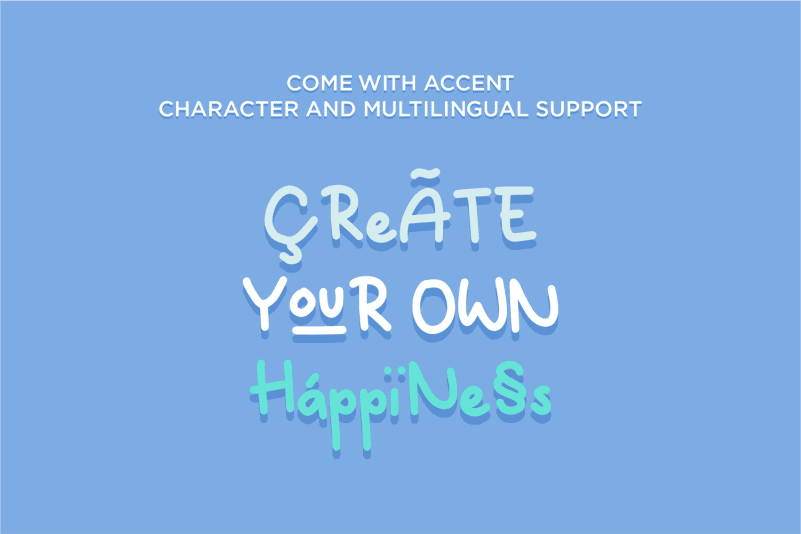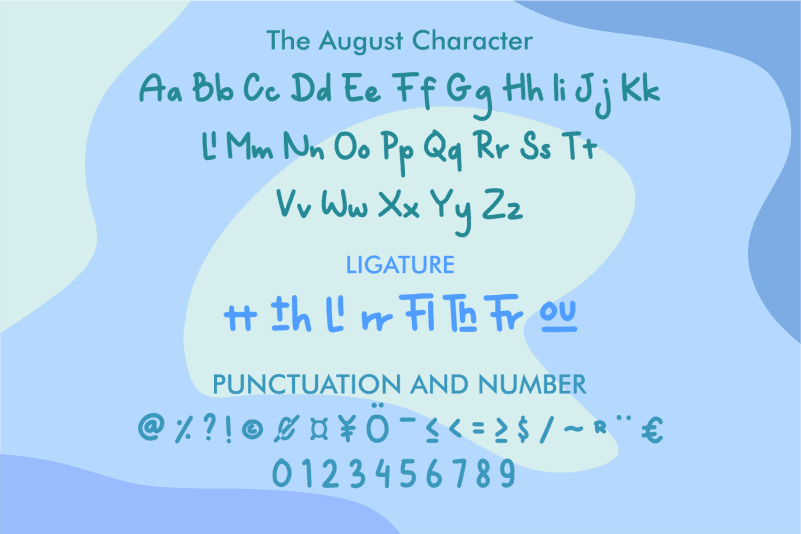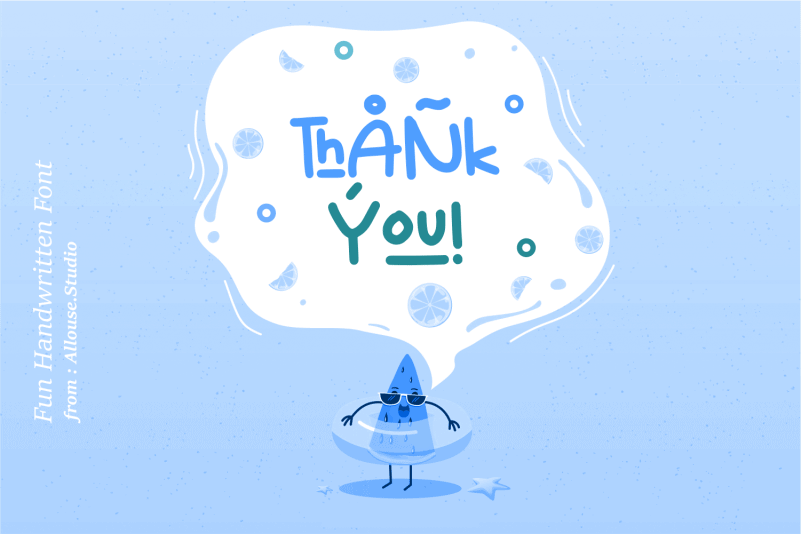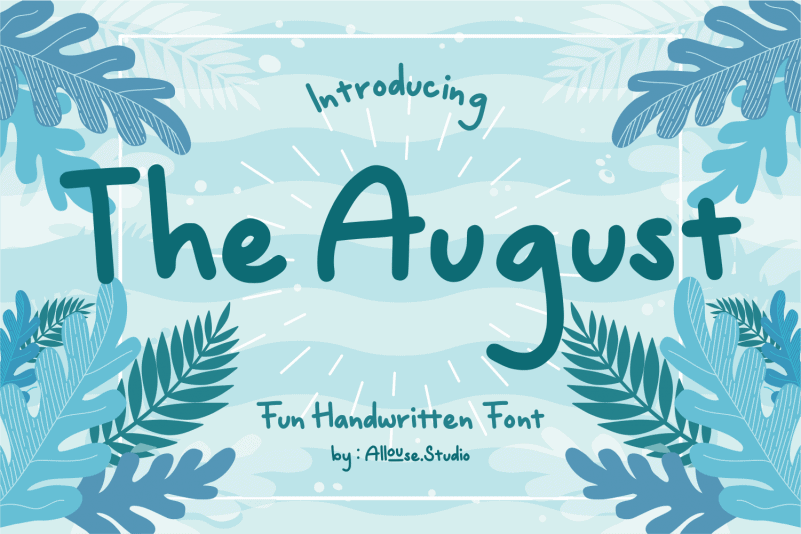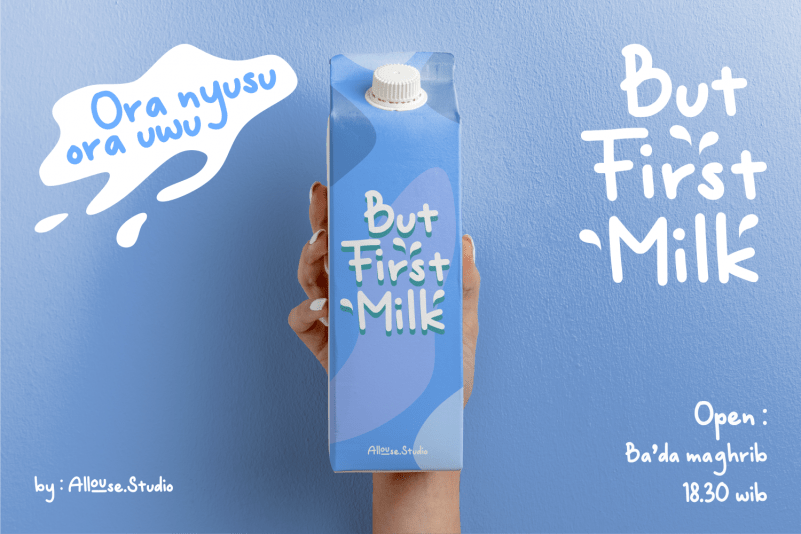
The August Handwritten Font come with Ligatures and Multi-Lingual Support which will add cool impression to your need. We highly recommend using a program that supports OpenType features and Glyphs panels like many of Adobe apps and Corel Draw, so you can see and access all Glyph variations.
The August is perfect for product packaging, branding project, megazine, social media, wedding, or just used to express words above the background.